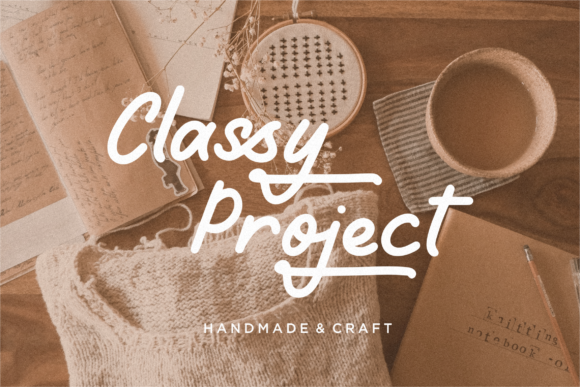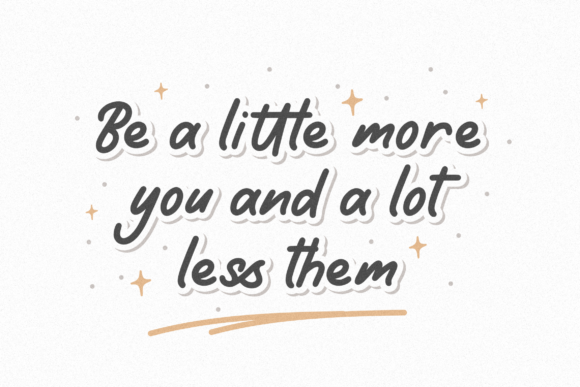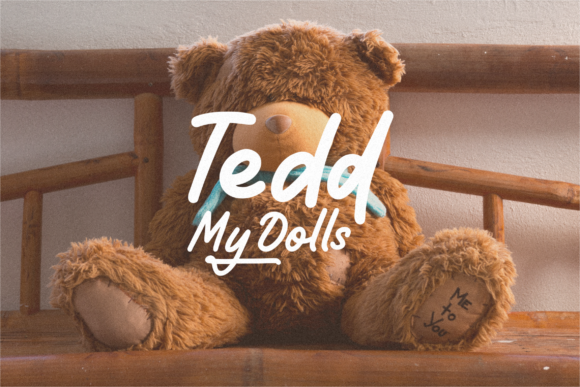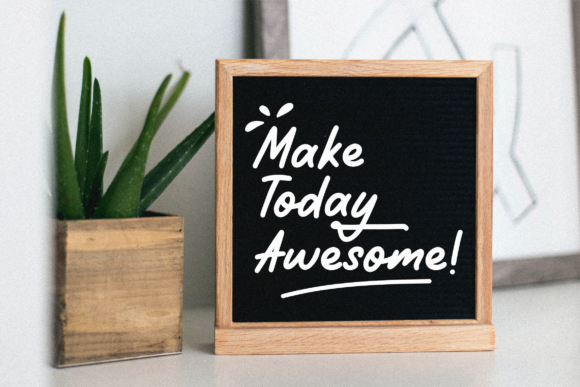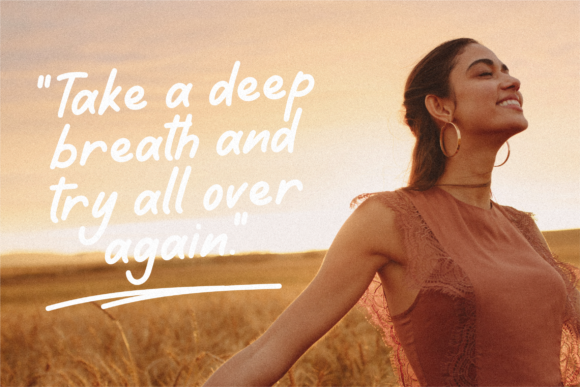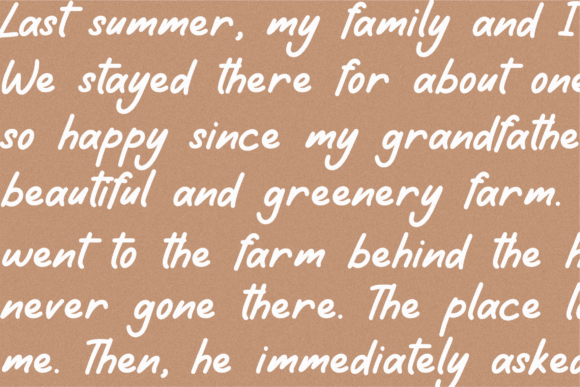
Donnabold Font: The Elegant and Charming Choice for Designers and Crafters
Are you a designer or crafter looking for a font that exudes elegance and charm? Look no further than the Donnabold font. This beautiful handwritten font is perfect for adding a touch of sophistication to any design project. In this article, we’ll take a closer look at the Donnabold font, its features, and how it can be used to elevate your designs.
What is Donnabold Font?
Donnabold is a modern calligraphy font that feels equally charming and elegant. Its flowing lines and cursive strokes make it perfect for designs that require a personal touch. The font is highly legible, making it suitable for use in a variety of applications, from wedding invitations to business cards.
Features of Donnabold Font
The Donnabold font has several features that make it a popular choice among designers and crafters. Some of its key features include:
- Elegant and Charming: The Donnabold font has a unique and sophisticated feel that makes it perfect for designs that require a touch of elegance.
- Handwritten: The font has a handwritten feel that makes it perfect for designs that require a personal touch.
- Highly Legible: The font is highly legible, making it suitable for use in a variety of applications.
- Versatile: The Donnabold font can be used in a variety of design projects, from wedding invitations to business cards.
Uses of Donnabold Font
The Donnabold font is a versatile font that can be used in a variety of design projects. Some of the most popular uses of the font include:
- Wedding Invitations: The Donnabold font is perfect for wedding invitations, adding a touch of elegance and sophistication to your design.
- Thank You Cards: The font is also great for thank you cards, allowing you to add a personal touch to your message.
- Quotes: The Donnabold font is perfect for use in quotes, adding a touch of elegance and sophistication to your design.
- Greeting Cards: The font can be used in a variety of greeting cards, from birthday cards to Christmas cards.
- Logos: The Donnabold font can be used to create elegant and sophisticated logos for businesses and brands.
- Business Cards: The font is also great for business cards, allowing you to add a touch of elegance and sophistication to your design.
Why Choose Donnabold Font?
There are many reasons why designers and crafters choose the Donnabold font for their design projects. Some of the reasons include:
- Unique and Sophisticated: The Donnabold font has a unique and sophisticated feel that makes it perfect for designs that require a touch of elegance.
- Easy to Read: The font is highly legible, making it easy to read and understand.
- Versatile: The Donnabold font can be used in a variety of design projects, making it a great addition to any designer’s toolkit.
- High-Quality: The font is of high quality, making it perfect for use in professional design projects.
Tips for Using Donnabold Font
Here are some tips for using the Donnabold font in your design projects:
- Use it Sparingly: The Donnabold font is a elegant and sophisticated font, so use it sparingly to add a touch of elegance to your design.
- Pair it with Other Fonts: The font can be paired with other fonts to create a unique and interesting design.
- Experiment with Colors: The Donnabold font can be used with a variety of colors, so experiment with different colors to find the one that works best for your design.
The Donnabold font is a beautiful and elegant font that is perfect for designers and crafters looking to add a touch of sophistication to their design projects. Its unique and sophisticated feel makes it perfect for use in a variety of applications, from wedding invitations to business cards. With its high legibility and versatility, the Donnabold font is a great addition to any designer’s toolkit.